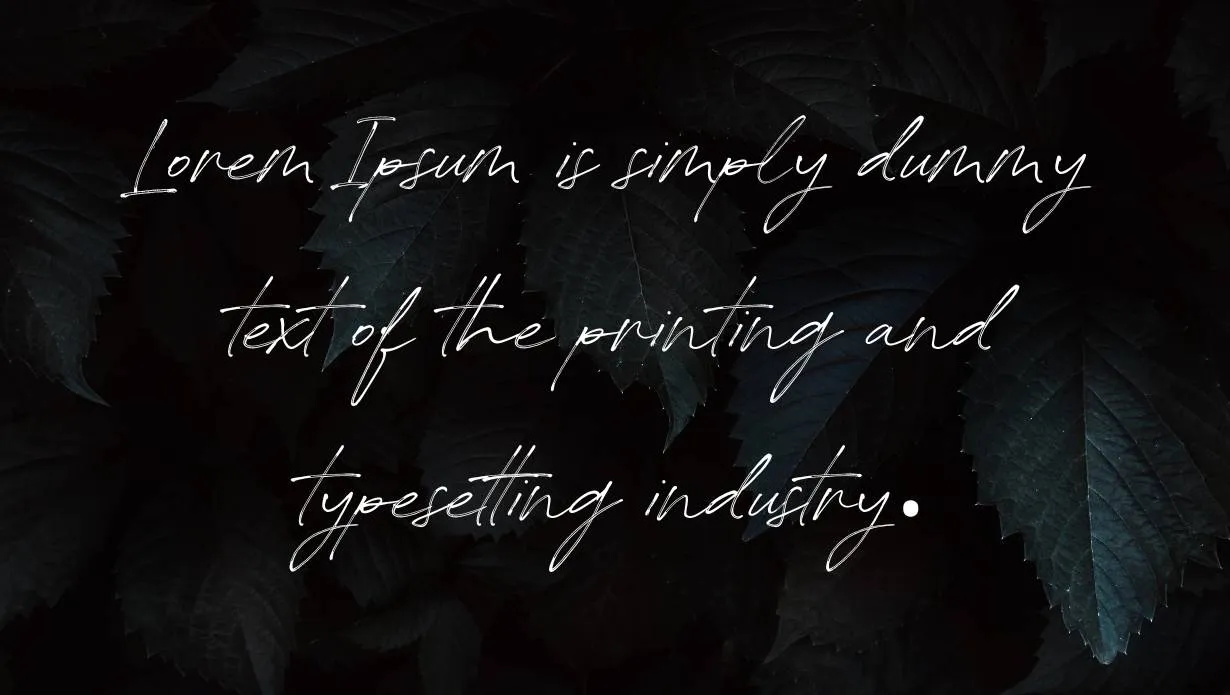
Redstock Font is a nice and attractive typeface. It is an elegant script typeface. The design of this font has thin line characters that give your design a nice and attractive appearance. This unique text design is created by Konstantine Studio.
When you combine this typeface with the gomawo font, you have the potential to create stunning displays.come to be an iconic style because of its beautiful design. The style has been used for branding and promotion purposes.